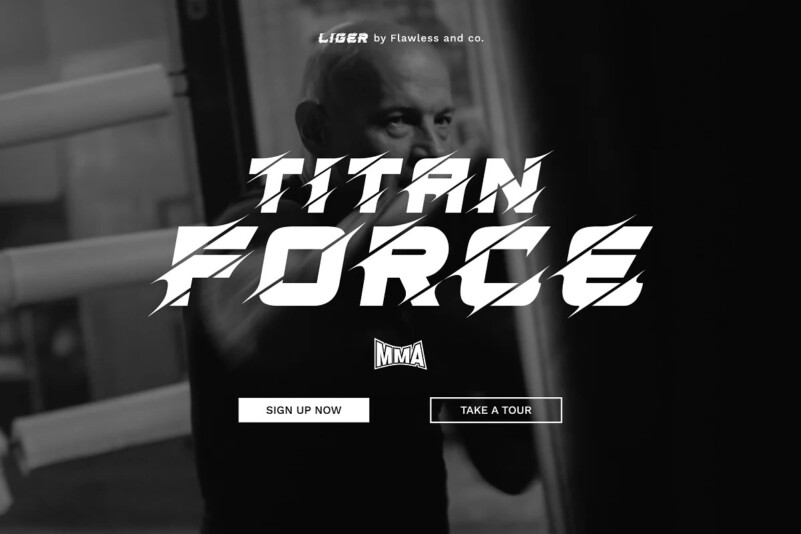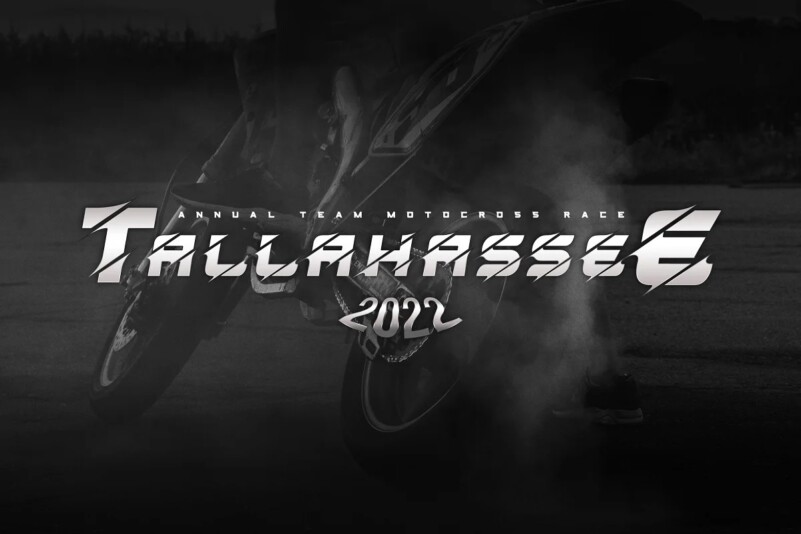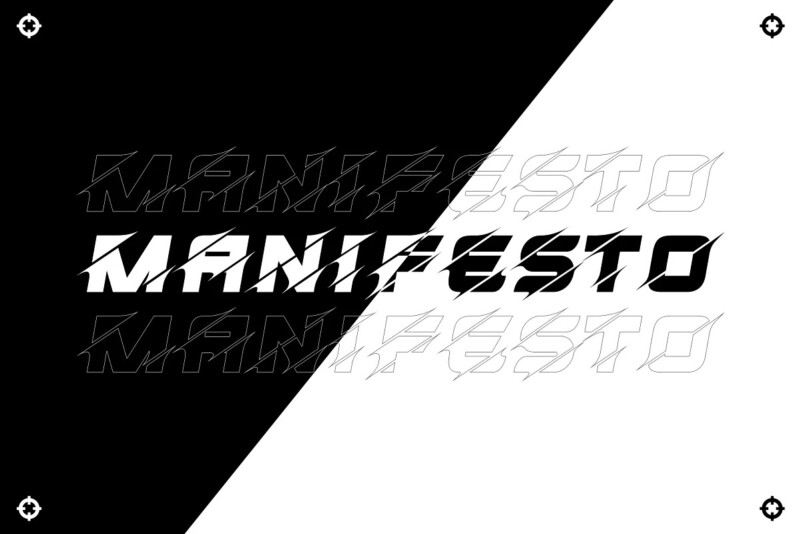
Liger Font
Liger Font is a bold and authentic display typeface crafted & designed by Flawless And Co, featuring strong blocky glyphs, this bold futuristic font is suitable for your projects like logo designs, social media posts, banners, posters, headers, etc.